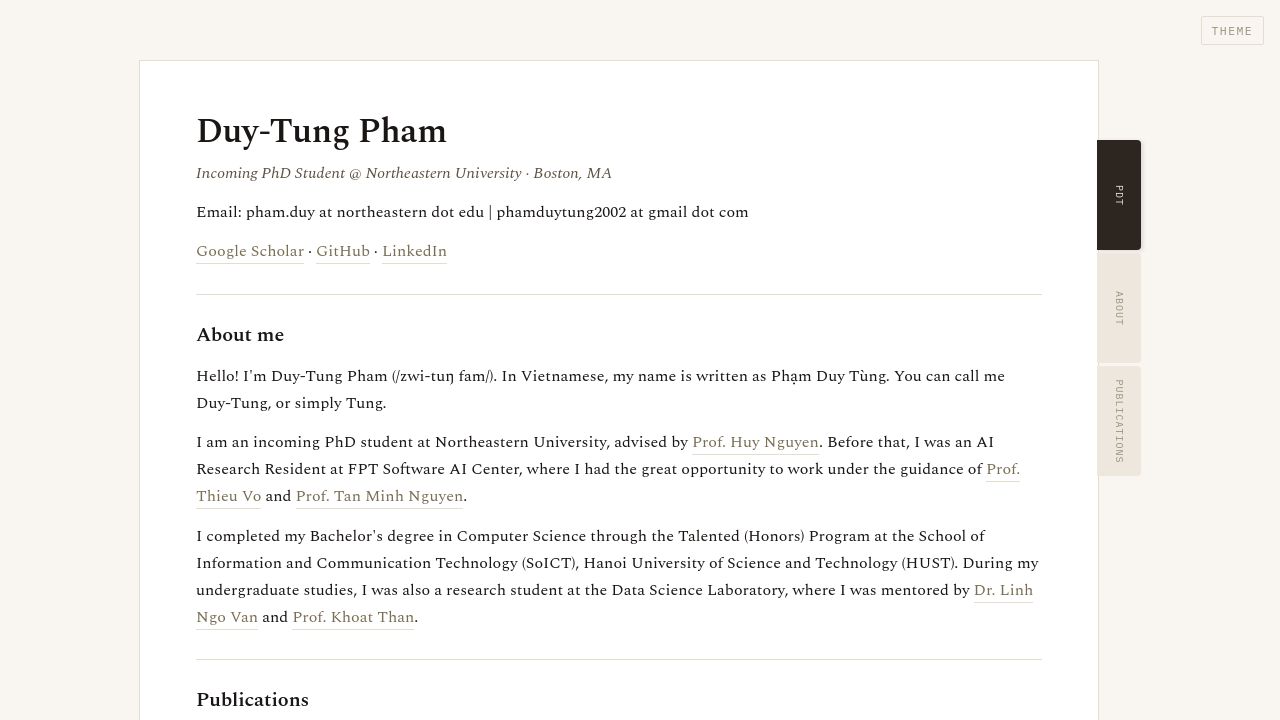
Duy-Tung Pham's website, phamduytung2002.com, showcases a unique blend of IBM Plex Mono and Spectral fonts, reflecting the intricacies of AI research and deep learning's mathematical foundations. IBM Plex Mono, used in weights of 400 and 500, provides a clear, technical aesthetic, while Spectral, available in weights of 400, 500, and 600, adds a sophisticated touch to the text. Together, these fonts create a distinctive visual identity that resonates with an audience interested in advanced technology.
The primary fonts used on phamduytung2002.com are IBM Plex Mono and Spectral, each selected for their clarity and sophistication.
IBM Plex Mono is a monospaced font ideal for code and technical content, while Spectral offers a more traditional serif style, making them suitable for distinct purposes.
IBM Plex Mono is available in weights of 400 and 500, while Spectral offers a range of weights including 400, 500, and 600, providing versatility for design.